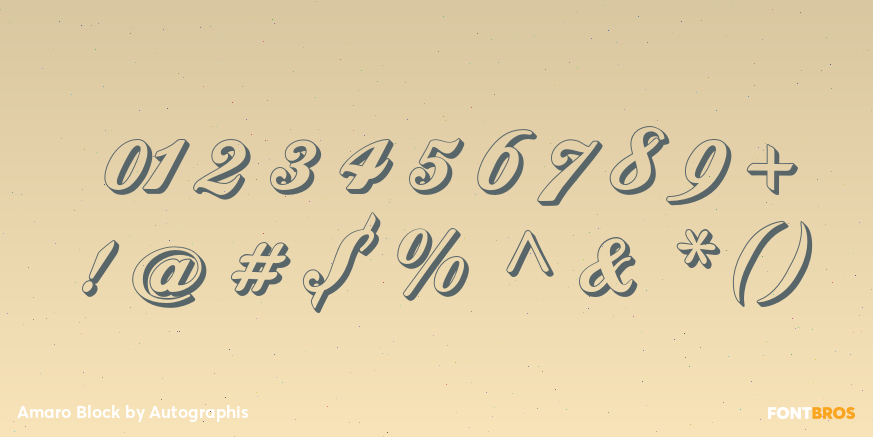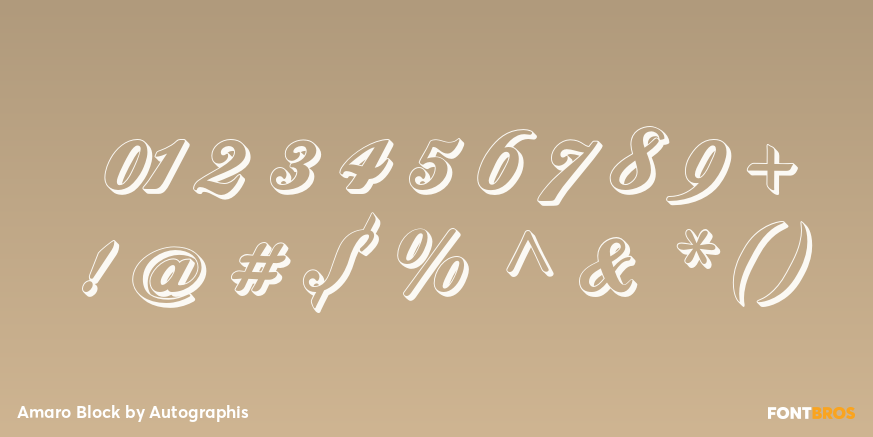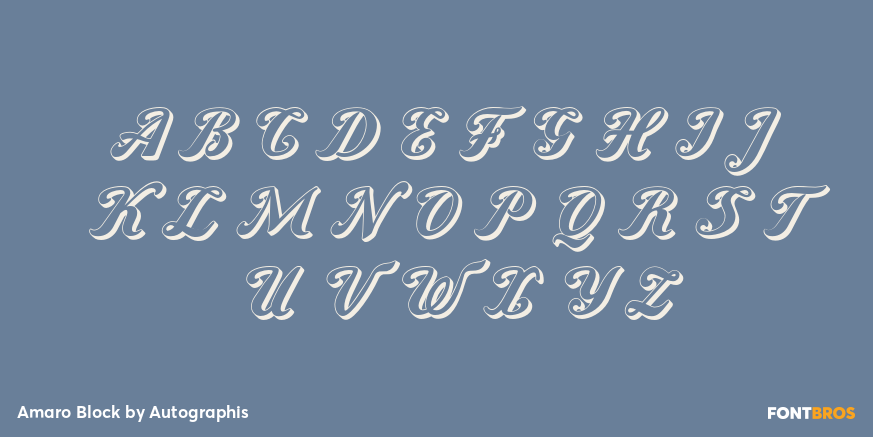
Amaro Block
Font Family by Autographis
Amaro Block is another decorative addition to my Amaro font family. Yes the font can be mixed with all Amaro fonts. The Amaro Mask Block is to be used as an underlay to the normal Amaro Block; this gives you the possibility to create a two-colored font. Just type your copy in Mask, tint it in one color and then place a copy over it in Block and tint that one in a different color. And ? oh wonder ? you have created your two-color font.